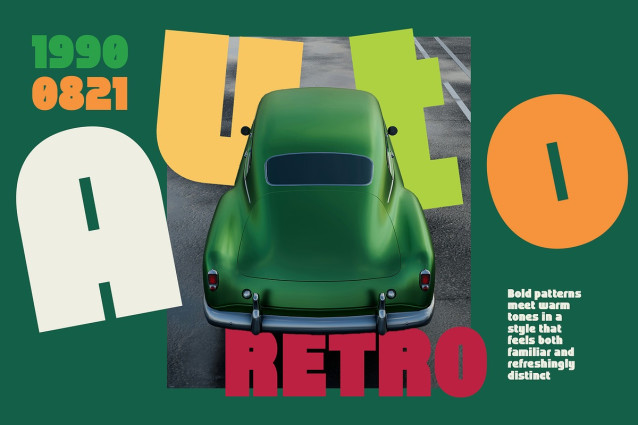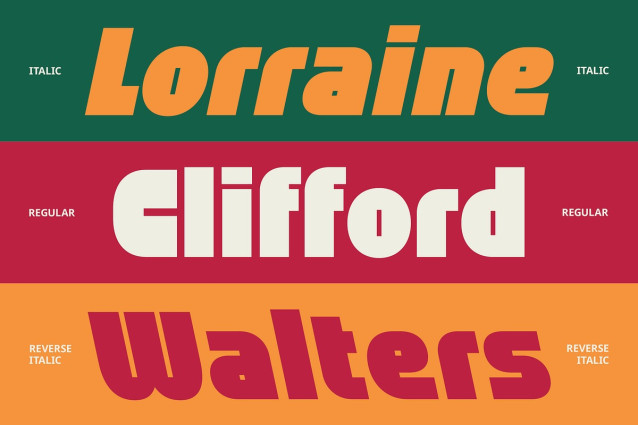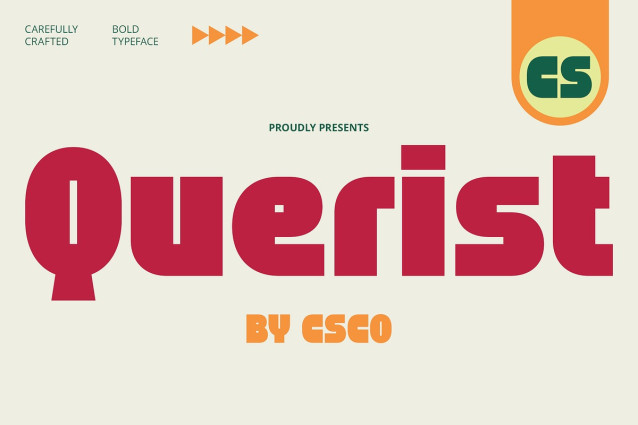
CS Querist Font
CS Querist – Bold Font is a bold sans serif typeface that combines vintage charm with modern clarity. Inspired by the strong, utilitarian type styles of the mid-20th century, it features thick strokes, clean edges, and balanced proportions. This font offers the perfect fusion of retro character and contemporary functionality, making it ideal for striking, confident design work.
Solid Forms for Confident Visuals Designed with thick strokes and clean cuts, CS Querist delivers impact with every character. The weight and structure of each letter evoke authority and clarity, making it a perfect fit for headlines, banners, and titles that demand a strong typographic voice.
Retro Aesthetics with Modern Versatility Though rooted in vintage inspiration, CS Querist adapts easily to contemporary needs. Whether you’re designing for fashion, editorial layouts, packaging, or logos, this font provides a timeless feel with a fresh edge. Its retro influence adds personality without feeling outdated.
Perfect for Branding and Display Design With its bold presence and versatile appeal, CS Querist excels in branding projects that aim to blend nostalgia with modern identity. From posters and merchandise to creative packaging and logo systems, this font helps your design make a memorable, stylish statement.